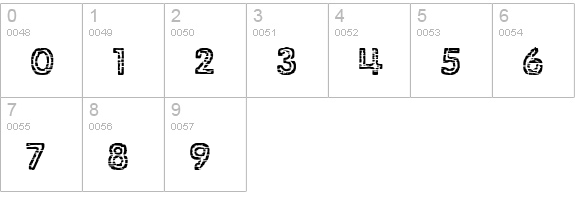
Stagnation -BRK- Font Details
Stagnation -BRK- font is a striking and captivating typeface that exudes a sense of boldness and strength. Its unique design combines sharp edges with bold lines, creating a visually stunning effect that commands attention. The Stagnation -BRK- font is perfect for projects that require a powerful and commanding presence. Whether it's for logos, headlines, or posters, this font will make a lasting impression and leave a mark on the viewer's mind. With its clean and balanced letterforms, Stagnation -BRK- font is highly readable and versatile. It effortlessly blends modernism with a touch of elegance, making it suitable for a wide range of applications. From corporate branding to editorial design, this font is sure to elevate your visuals to new heights. One of the best things about Stagnation -BRK- font is that it is available for free download at FontsMarket.com. This means that you can easily access and utilize this powerful font without any cost. The convenience and affordability make it an excellent choice for designers and creatives who are looking to add a touch of uniqueness and sophistication to their projects. So, if you're searching for a font that combines strength, elegance, and accessibility, look no further than Stagnation -BRK-. Download it for free at FontsMarket.com and let your creativity soar.